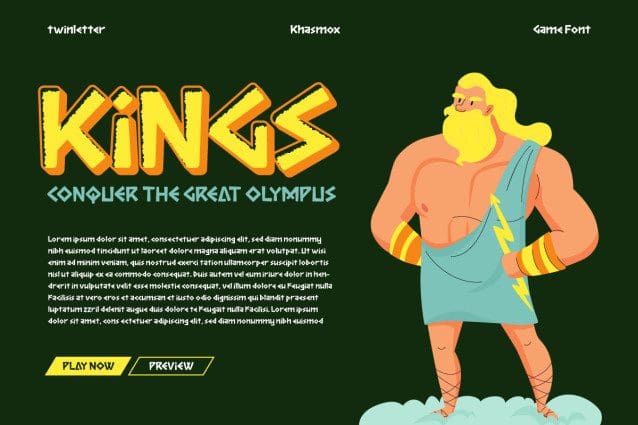
Khasmox Display Font
Khasmox Display Font, a game display font that is all about energy and excitement. Its bold, angular shapes capture the essence of the gaming world, making it the perfect choice for creating eye-catching titles and headers in game interfaces and promotional materials. Whether you’re designing for a fast-paced action game or a strategic puzzle game, Khasmox will help you create a gaming experience that players won’t forget.